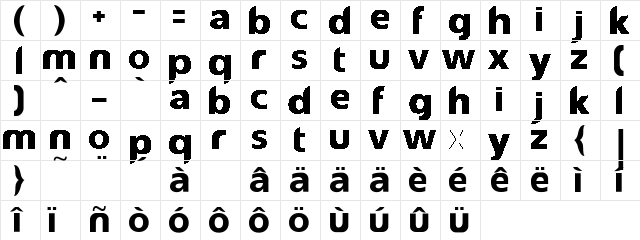
reasonSystem Regular Free Font
reasonSystem Regular
Designer: trame communication visuelle - Jessica Goodwin
Design Context for reasonSystem
reasonSystem is a composed and adaptable typeface that performs quietly and consistently across a wide range of design contexts.